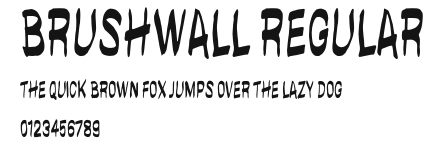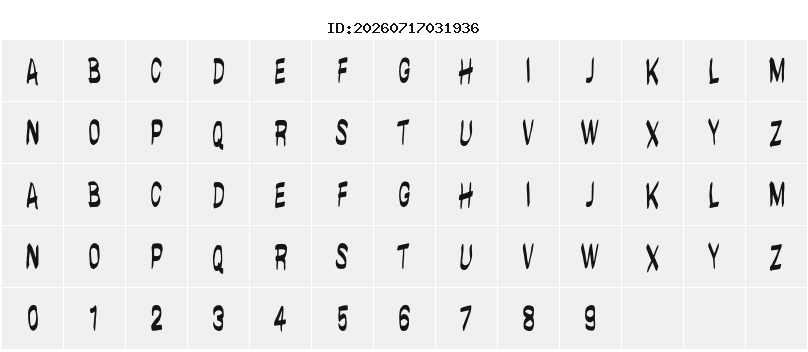
brushwall regular Preview
• Font Name: brushwall regular
• Designer: Cruzine
About brushwall regular.otf
brushwall regular.otf is a modern, elegant sans-serif font designed for ultimate readability and visual harmony. Perfect for branding, headlines, web design, and print materials.